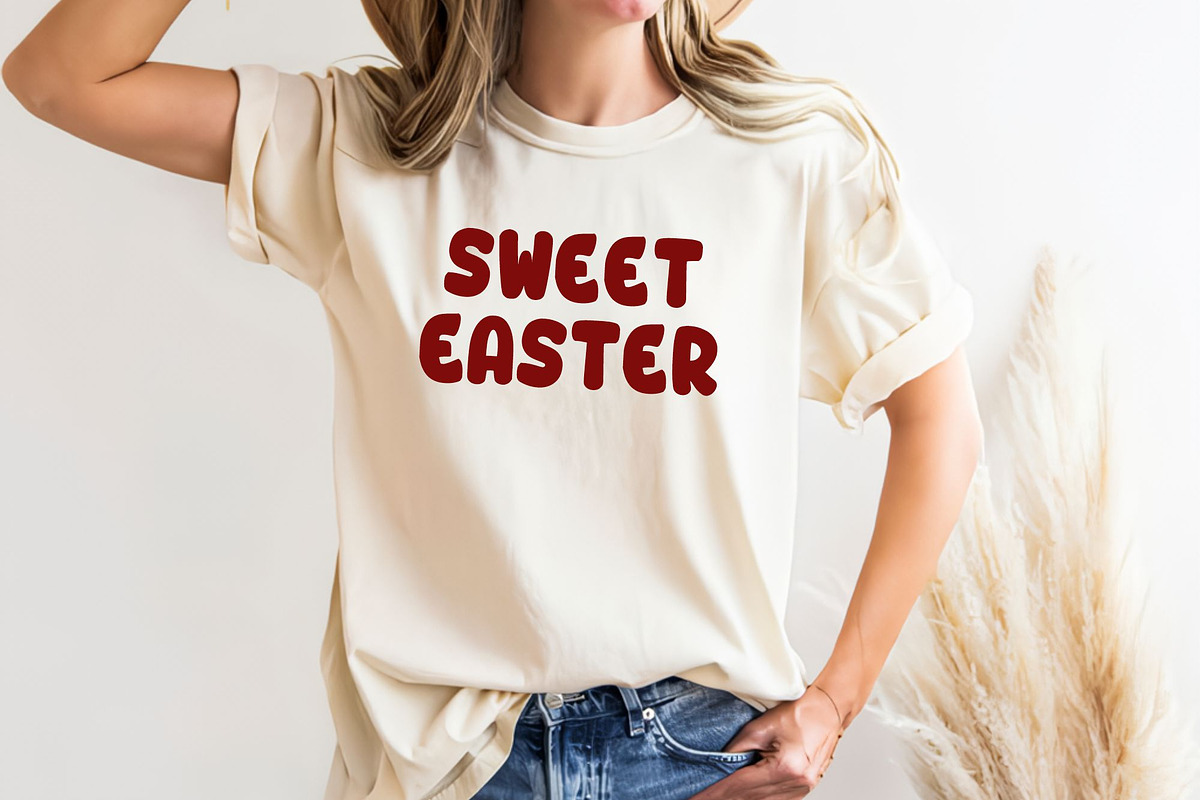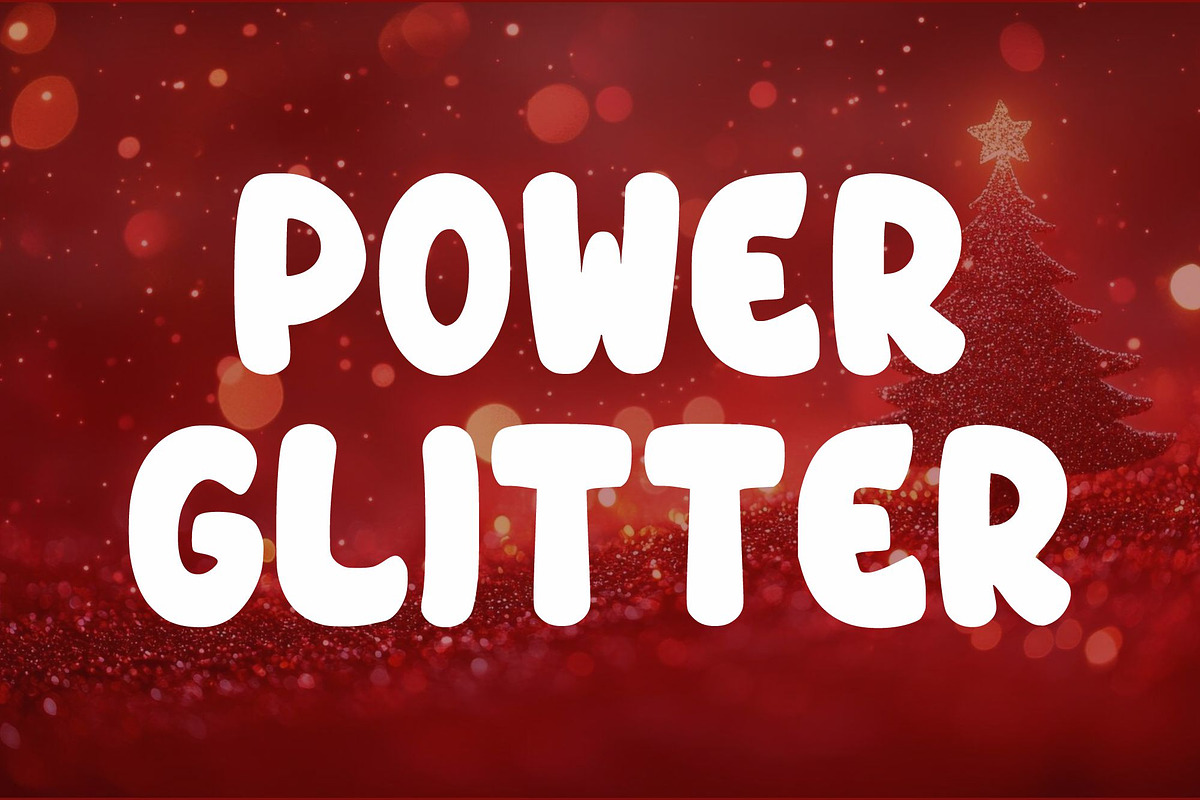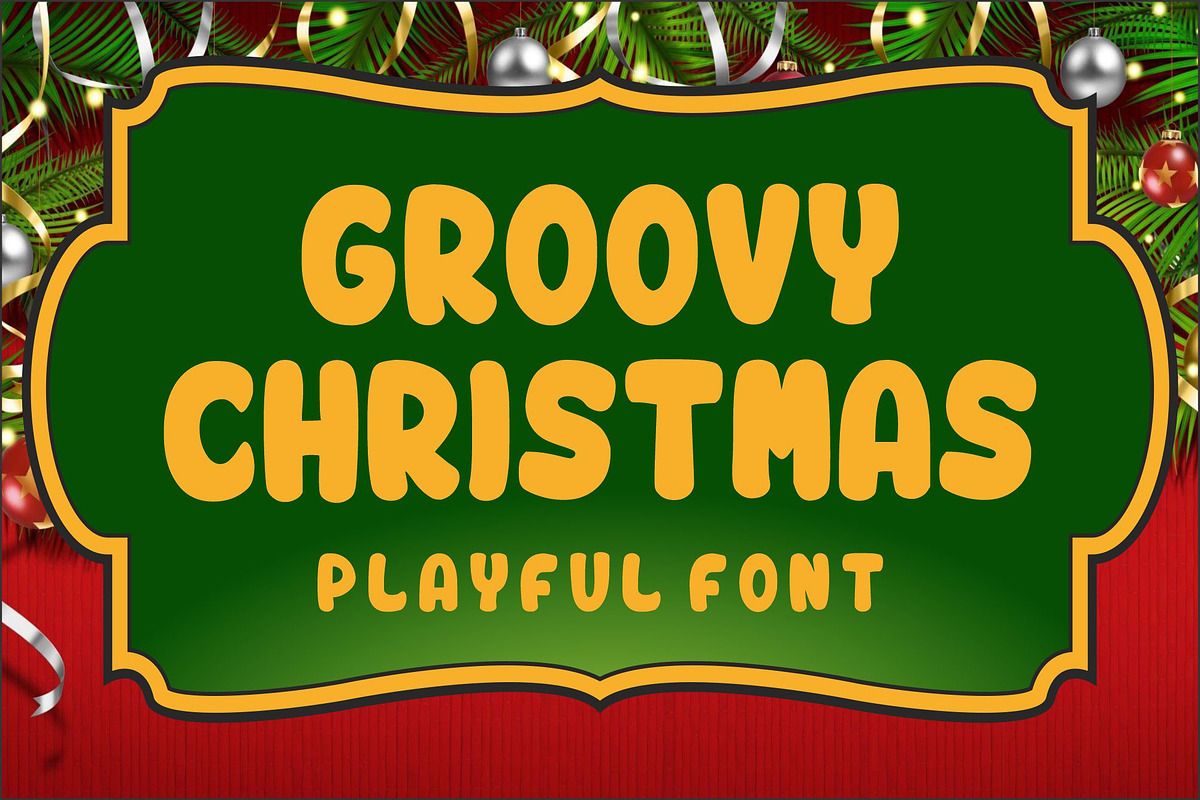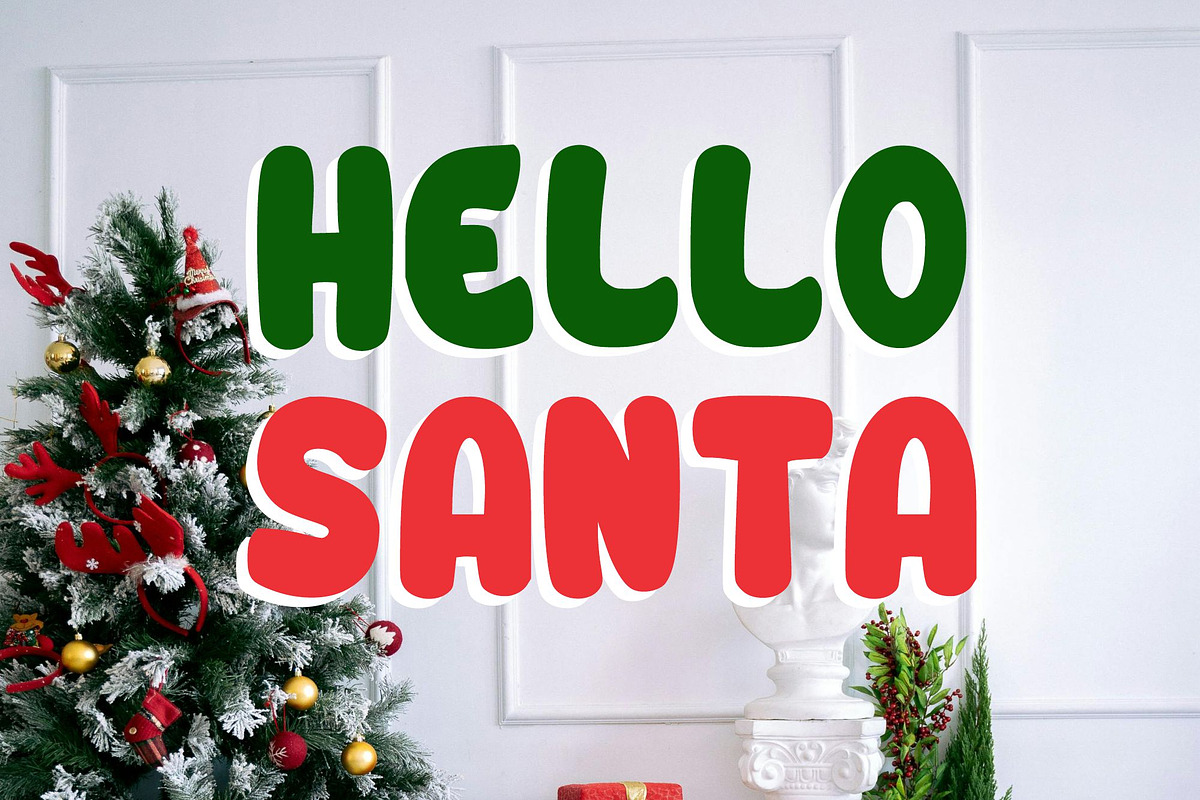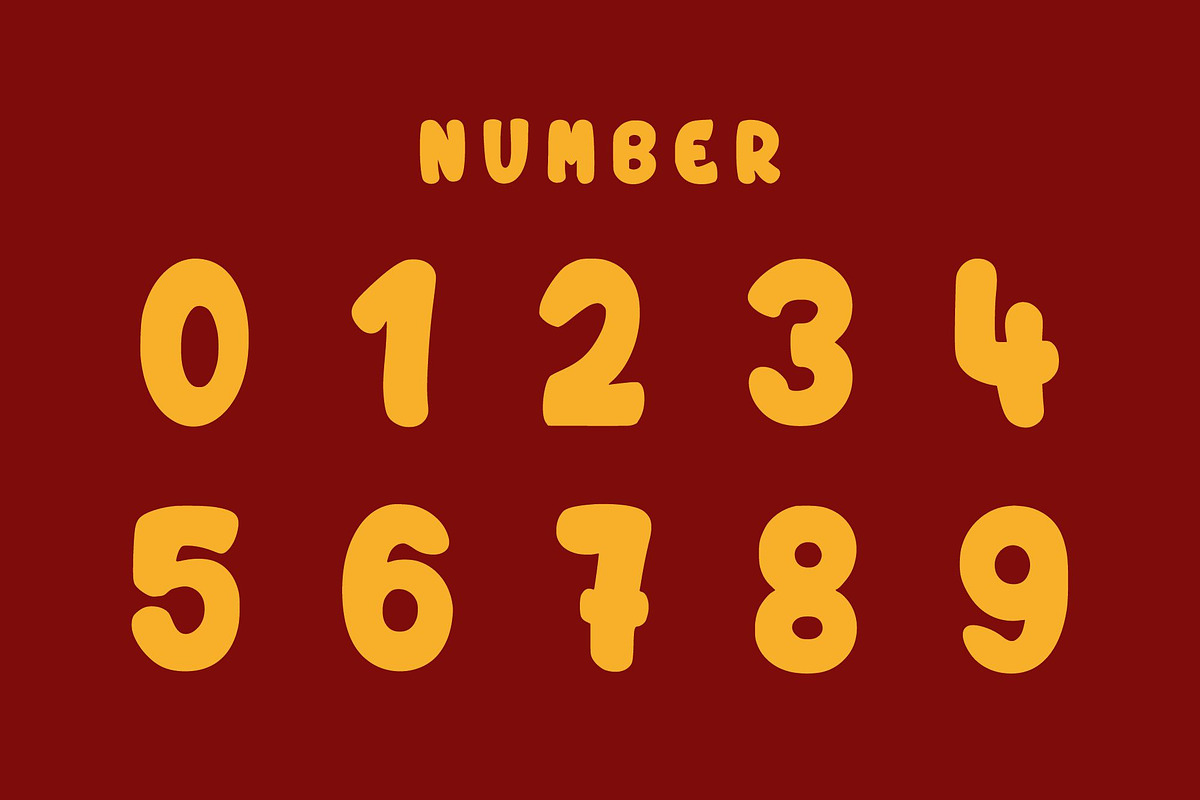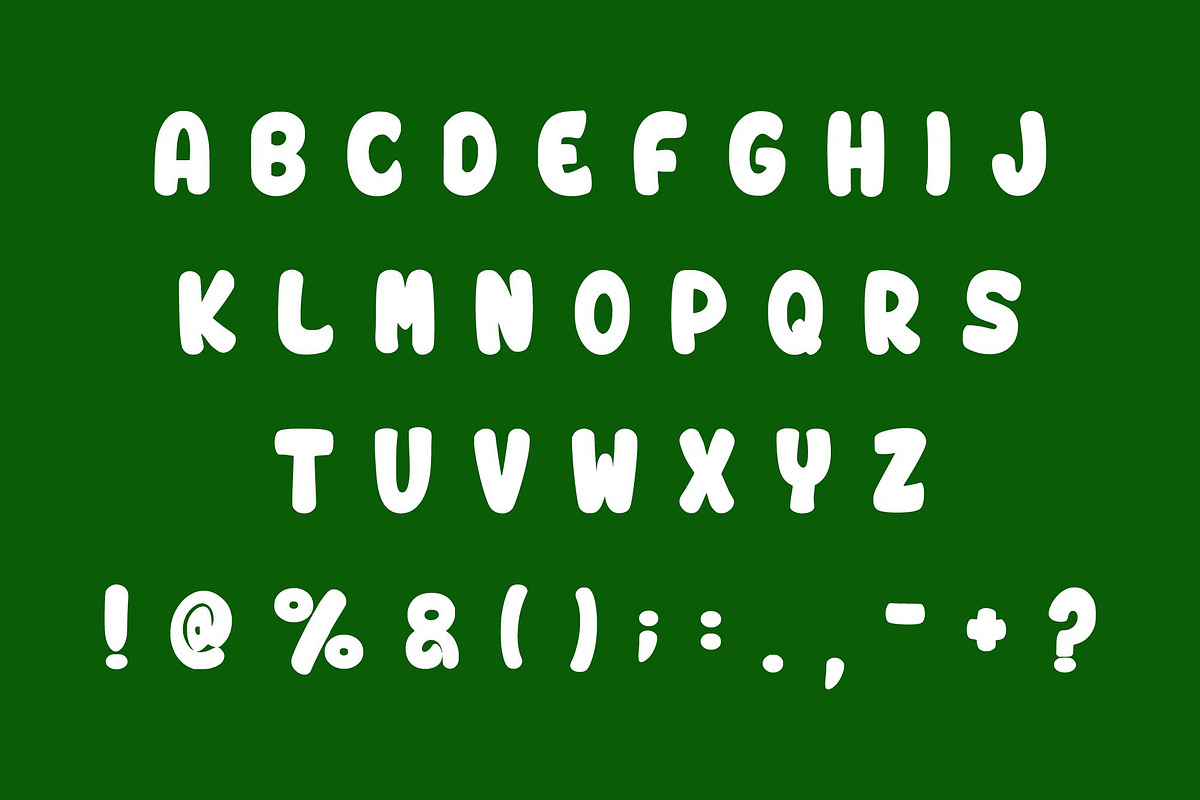
Groovy Christmas
Groovy Christmas typeface is a fun and festive, playful display font that captures the heart of holiday cheer with its rounded, bubbly characters and bold presence. Designed to evoke the nostalgic charm of retro Christmas decor, this font blends a sense of warmth with a dash of whimsy. Its soft, chunky letterforms make it perfect for greeting cards, party invites, posters, stickers, and holiday merchandise. Whether you’re designing digital content or printed materials, Groovy Christmas is easy to read and bursting with personality. It comes in OTF and TTF formats, and includes uppercase letters, symbols, and punctuation.